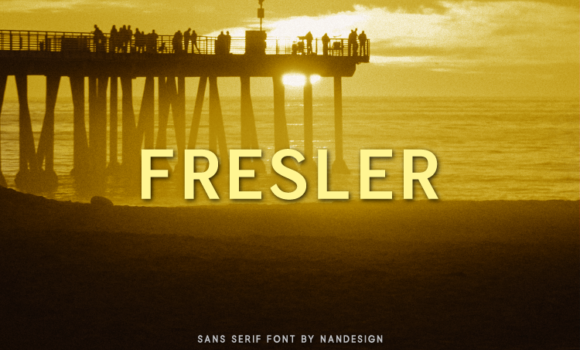
Fresler Font – Free Download Introduction to Fresler Font Fresler is an authentic sans serif font, designed to complement every project you’re currently working on. 📸 Preview Gallery 2 images 📌 Product Name Fresler Font 👤 Author Nan Design 📂